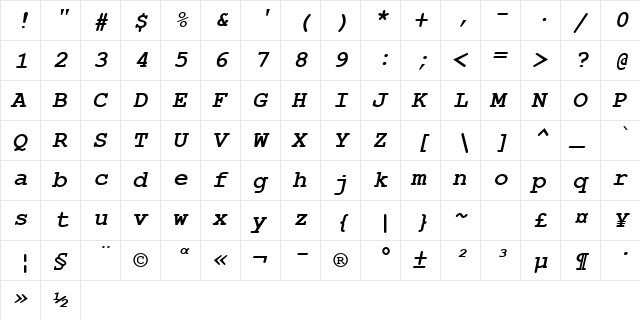
Courier New Greek Bold Inclined
Design Context for Courier New Greek Typeface
Courier New Greek uses fixed-width spacing throughout, giving it the structured, systematic character associated with coding environments and technical documentation. Its bold stroke weight gives it real presence on the page.
A natural fit for code editors, technical documentation, developer-focused branding, and terminal-inspired UI.
Pro Tip: Pair Courier New Greek with a proportional sans for UI contexts where code-style labels and regular body copy need to coexist.